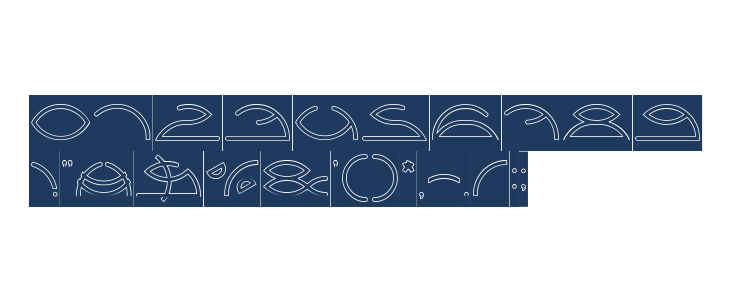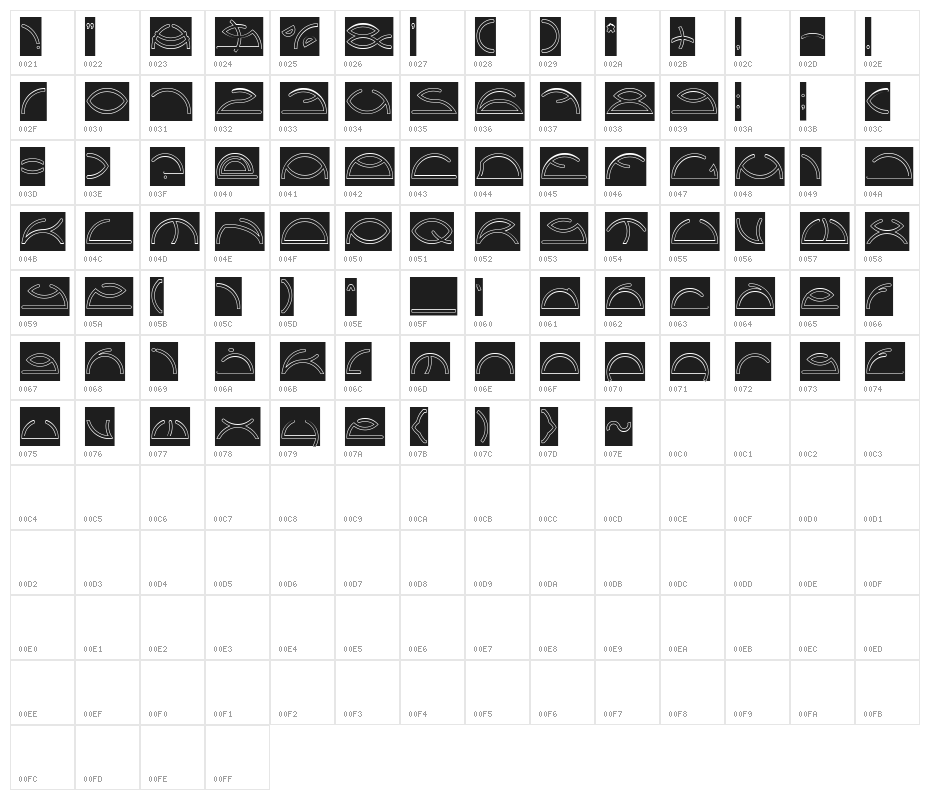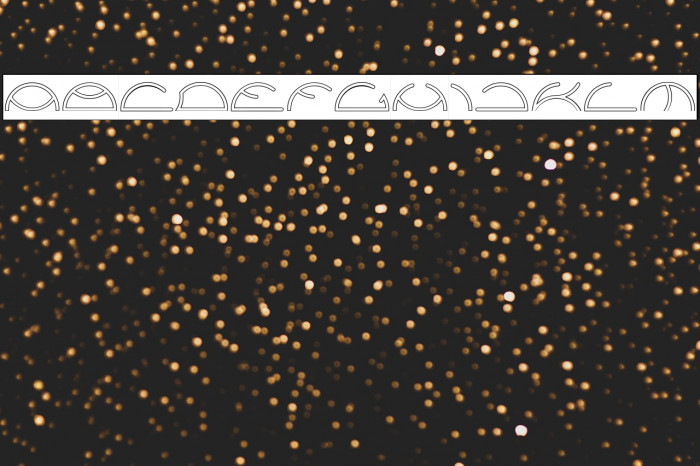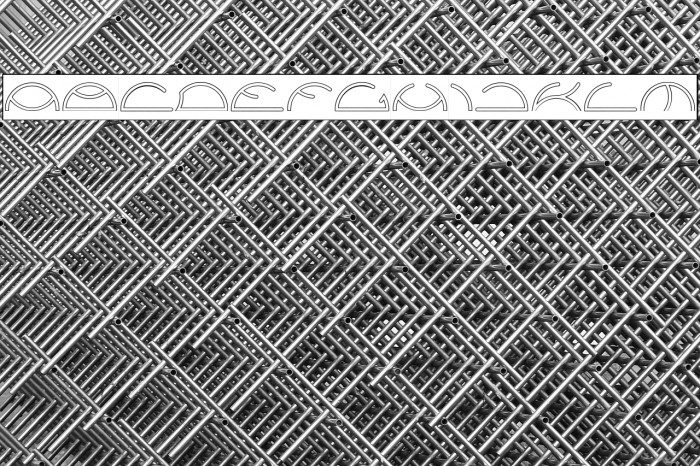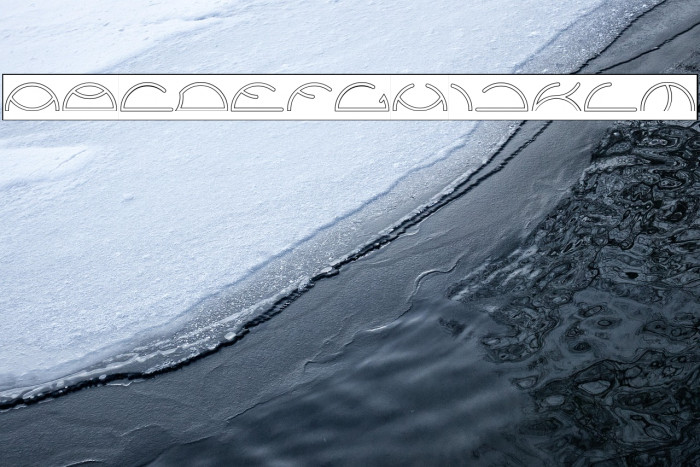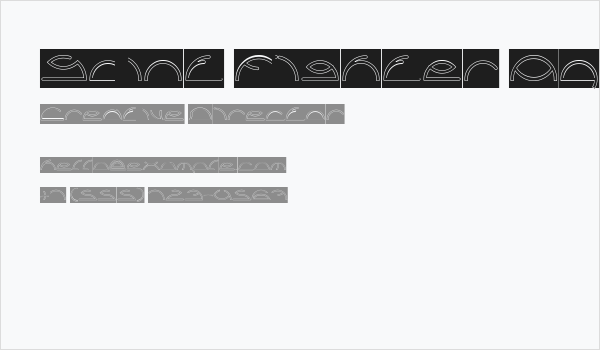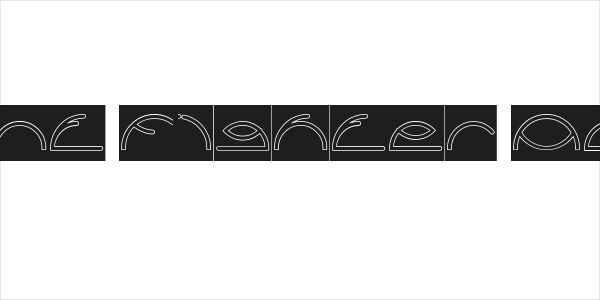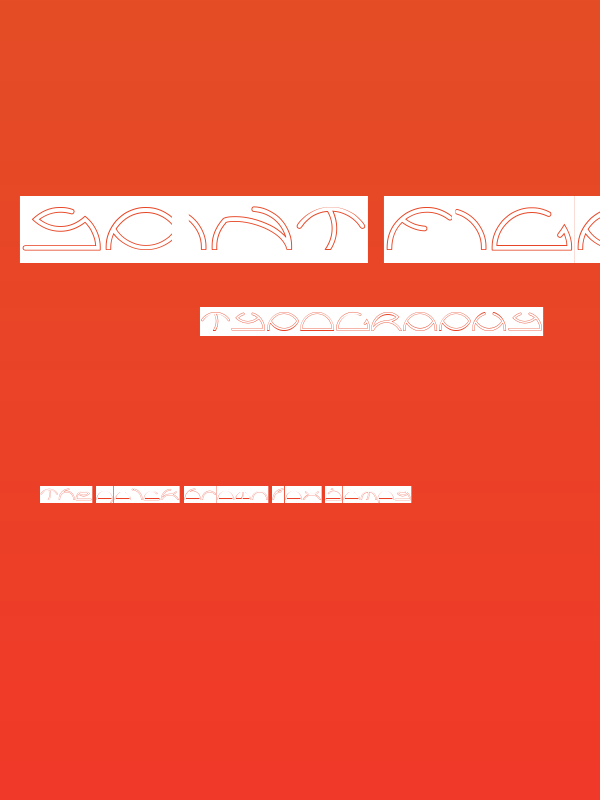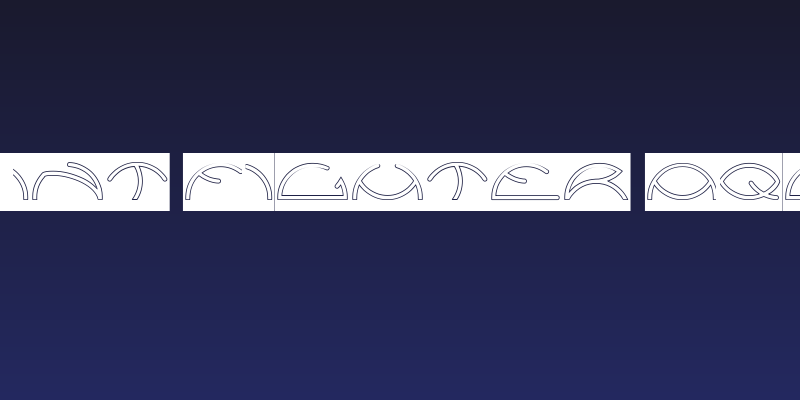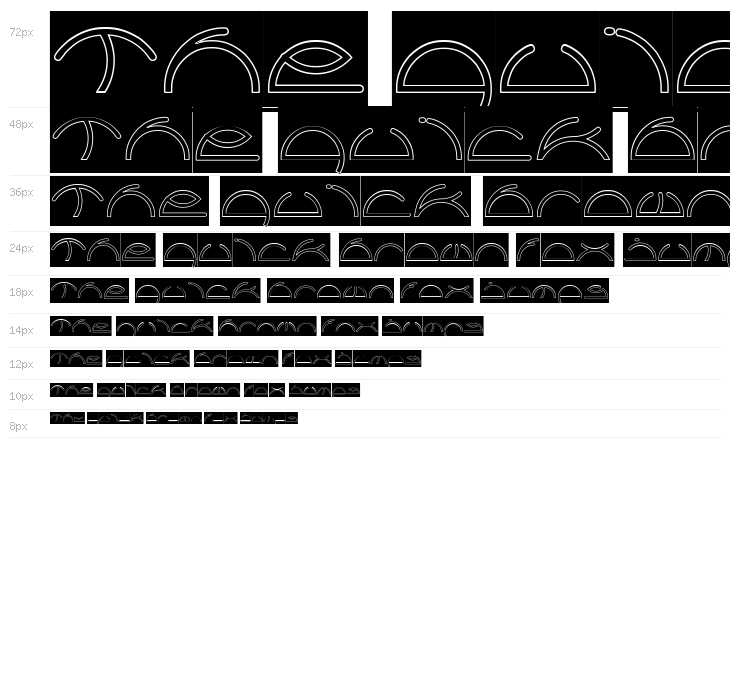
Saint Fighter Aqua Font
Saint Fighter Aqua Description
This font features a highly stylized and abstract design, reminiscent of ancient or mystical scripts. The characters are composed of smooth, flowing lines that create a sense of movement and fluidity. Each letter is unique, with curves and loops that suggest a connection to water or aquatic themes. The overall appearance is both decorative and enigmatic, making it suitable for projects that require a touch of mystery or fantasy. The font's intricate design may challenge readability at smaller sizes, but it excels in creating a striking visual impact.
| Overall Style | Mystical, Fantasy, Decorative |
| Proposed Projects | Ideal for fantasy book covers, game titles, or mystical-themed branding. |